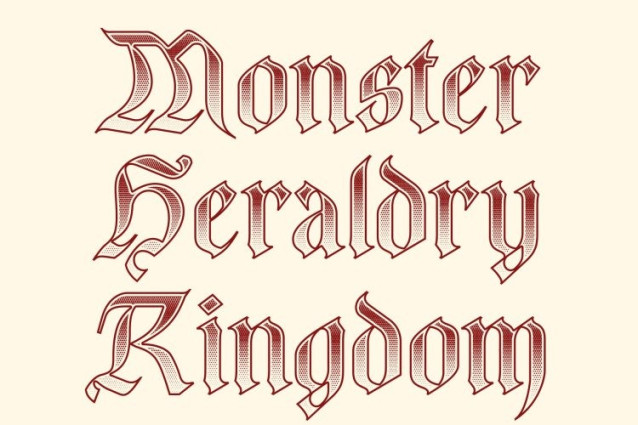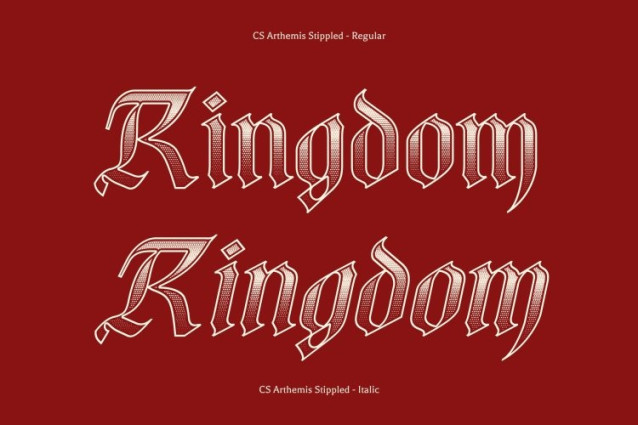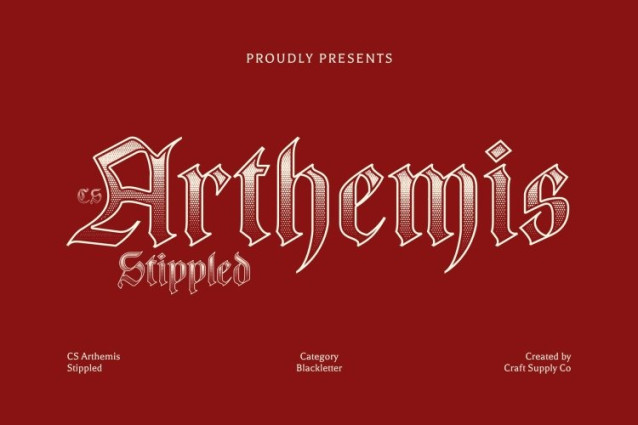
CS Arthemis Stippled Font
CS Arthemis Stippled Font This is a Blackletter display serif that blends intricate Gothic letterforms with a handcrafted stippled texture. Inspired by traditional ink-dot and stippling illustration techniques, the dotwork detailing adds depth, richness, and a tactile vintage feel, enhancing the font’s historical elegance while preserving its bold, commanding presence.
Ornate Letterforms with Textured Sophistication
Every character features detailed gothic curves and decorative flourishes, elevated by the stippled surface to create a sense of engraved artistry. This textured treatment enriches the medieval aesthetic, giving a timeless grandeur and a visual depth that captures attention across any design.
Conveys Authority, Tradition, and Elegance
Rooted in Gothic heritage, communicates prestige, sophistication, and historical gravitas. Its ornate detailing and stippled finish make it perfect for designs that require an authoritative yet artistic presence luxury branding, formal invitations, or thematic projects benefit from its bold, distinguished style.
Perfect for Themed, Luxury, and Formal Applications
Ideal for medieval-inspired events, high-end branding, exclusive invitations, and editorial layouts, delivers a striking typographic statement. The combination of historical Gothic structure and textured artistry ensures each design feels dramatic, timeless, and visually memorable.